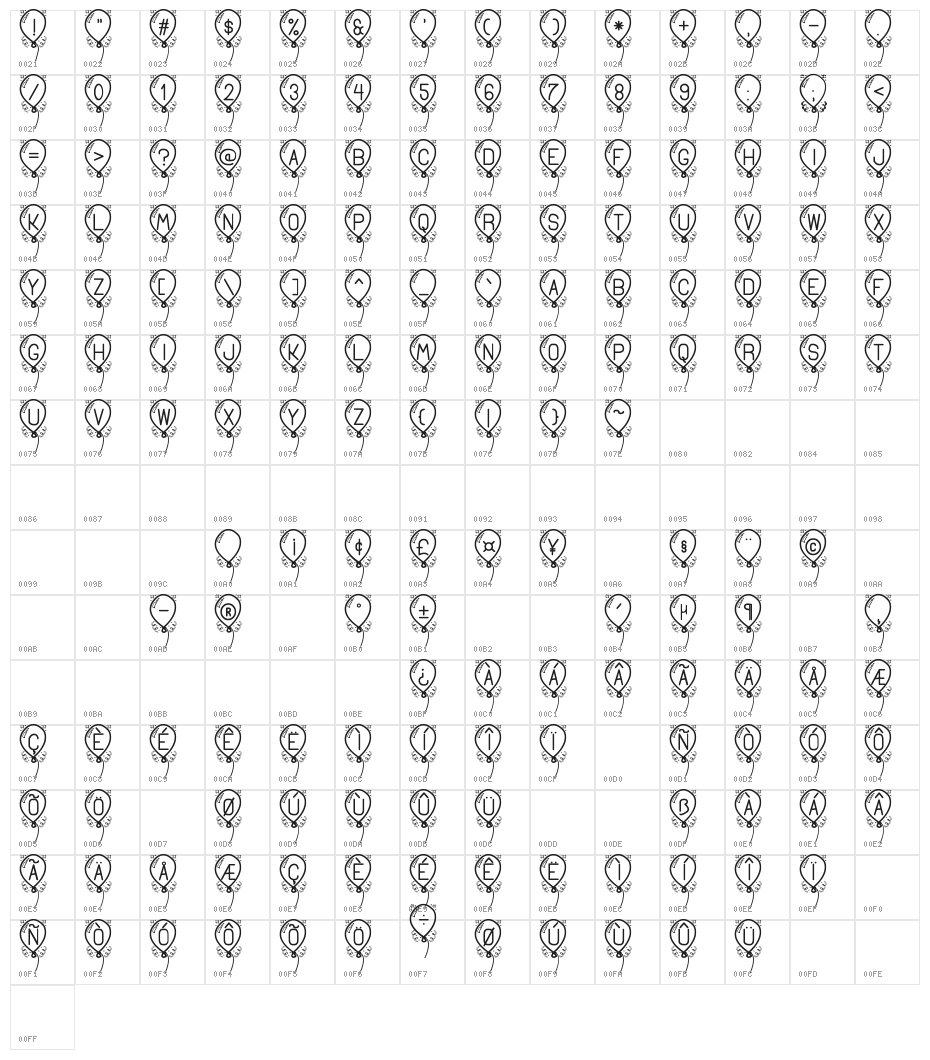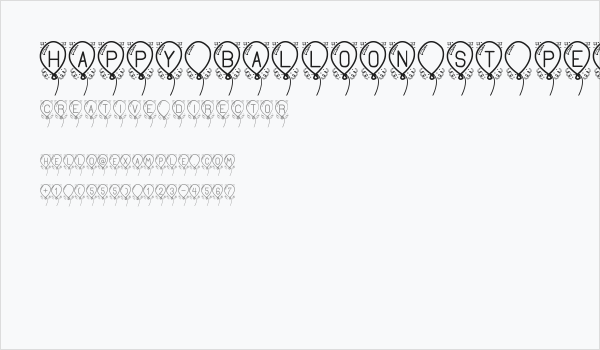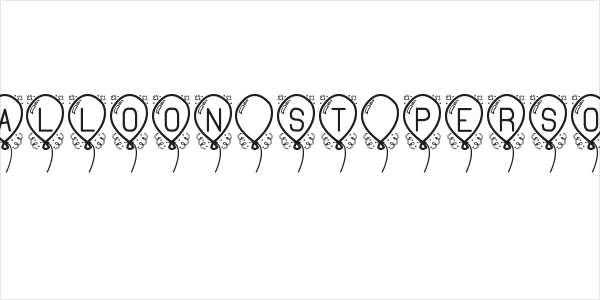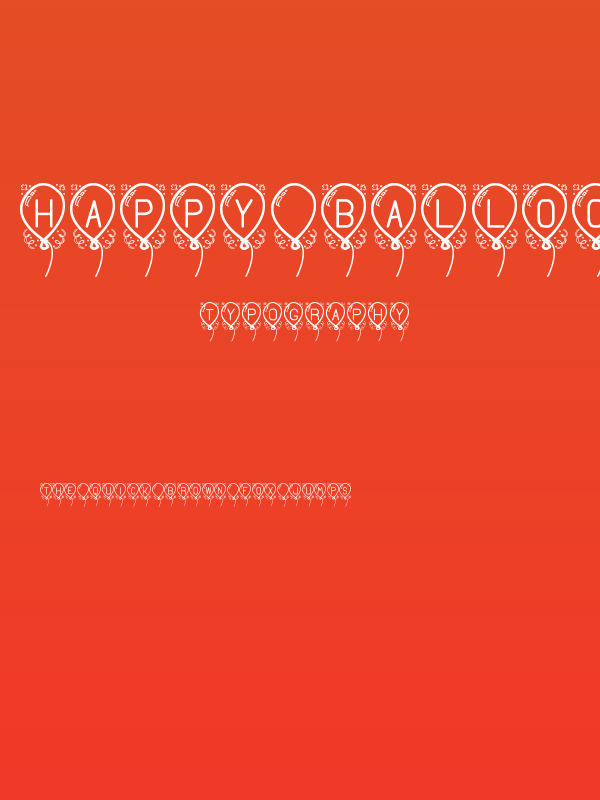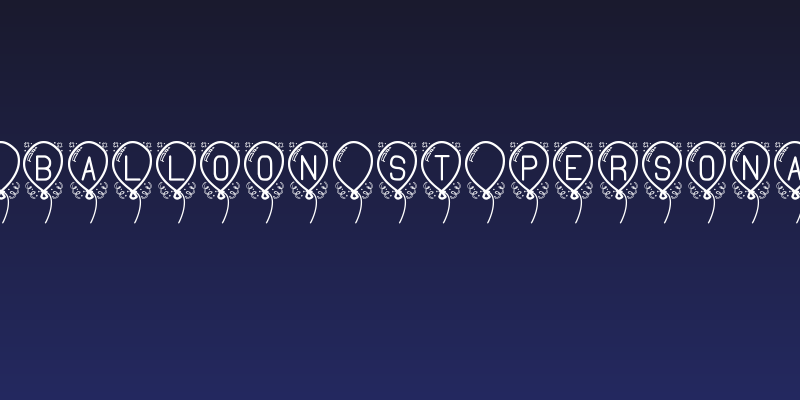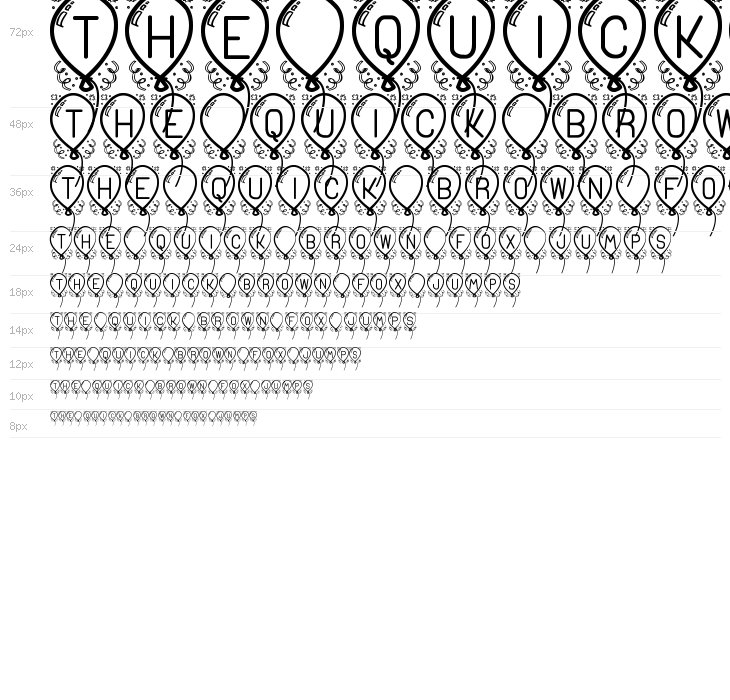
Happy Balloon St PERSONAL USE Font
Happy Balloon St PERSONAL USE Description
This playful and whimsical font features each character enclosed within a balloon shape, complete with a string, giving it a festive and celebratory appearance. The letters and numbers are bold and clear, making them easily readable while maintaining a fun and decorative style. The design includes both uppercase and lowercase alphabets, numerals, and a variety of special characters, all consistently styled within the balloon motif. This font is perfect for adding a touch of joy and excitement to any project, making it ideal for party invitations, children's events, or any occasion that calls for a lighthearted and cheerful aesthetic.
| Proposed Projects | Ideal for party invitations, children's event materials, festive banners, and playful branding. |